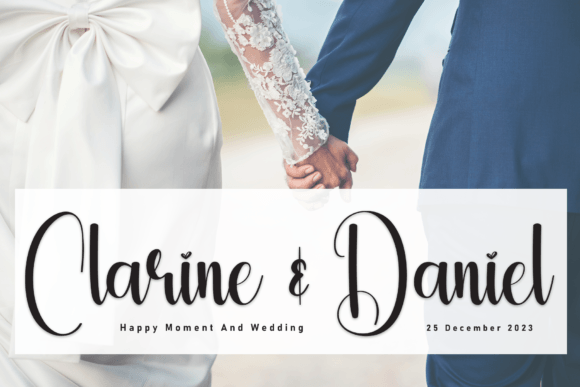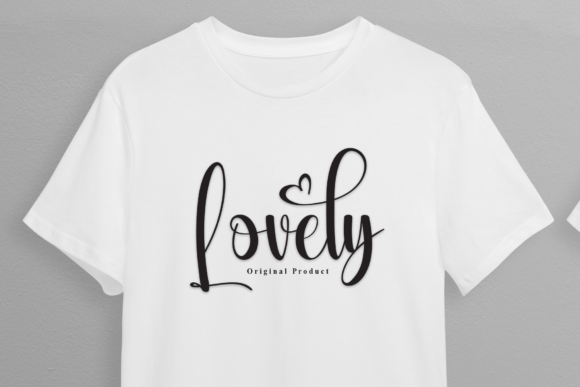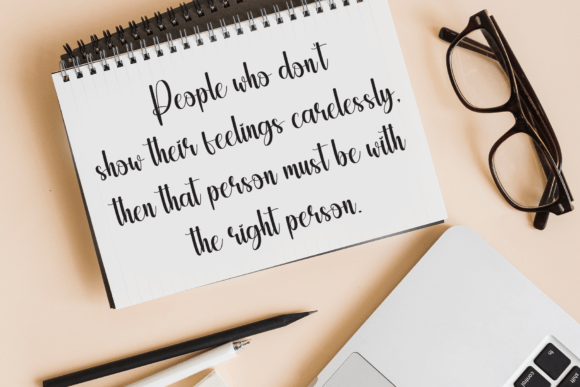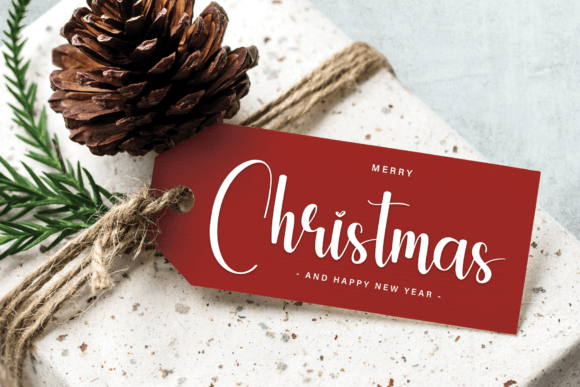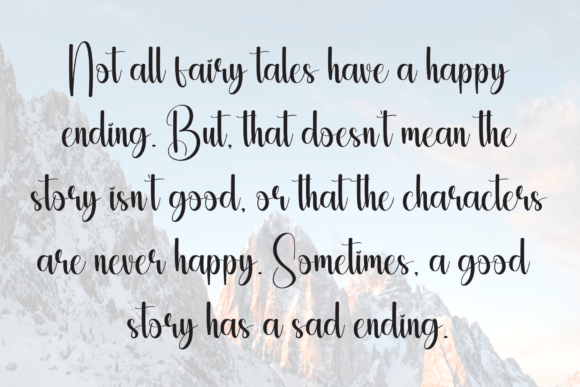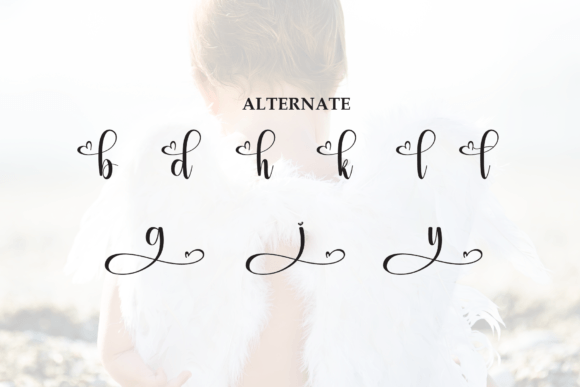
Introduction to Angel Babyish Font
Angel Babyish is a sweet and friendly handwritten font.
Key Features of Angel Babyish Font
Why Choose Angel Babyish Font?